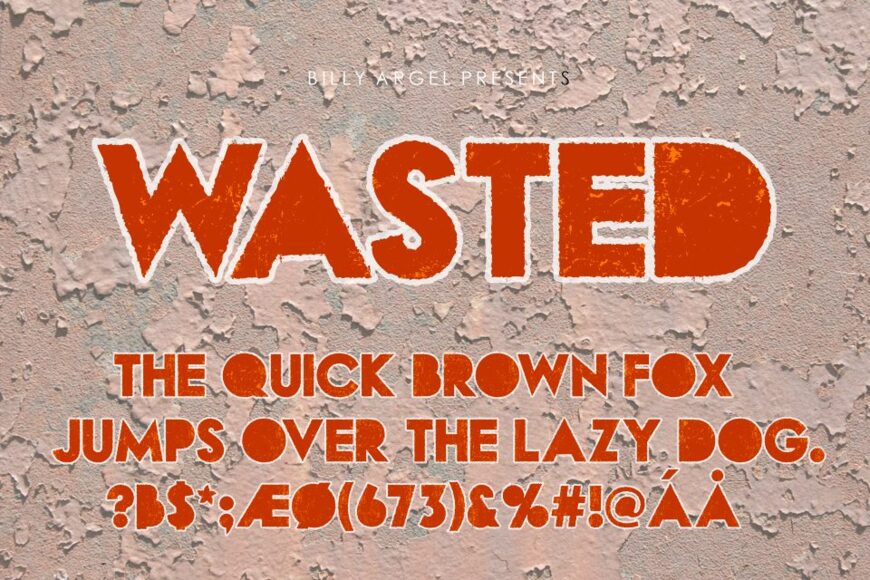
Wasted is a bold, distressed sans serif font featuring three layered styles for creating striking, textured typography. Its rugged, weathered appearance makes it perfect for logos, posters, apparel, merchandise, album covers, branding, and promotional designs. Wasted delivers a powerful urban character that helps headlines and creative projects stand out with raw, rebellious energy.